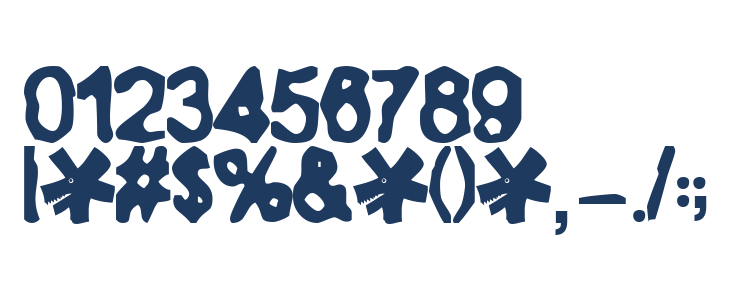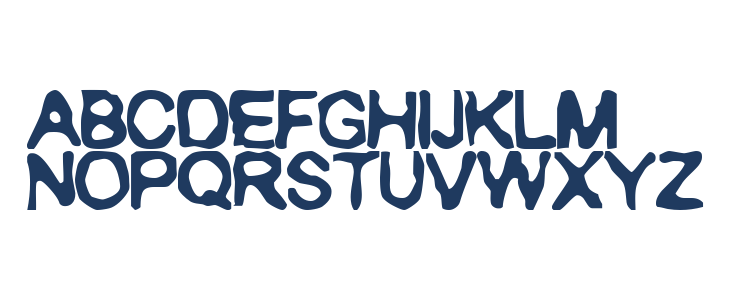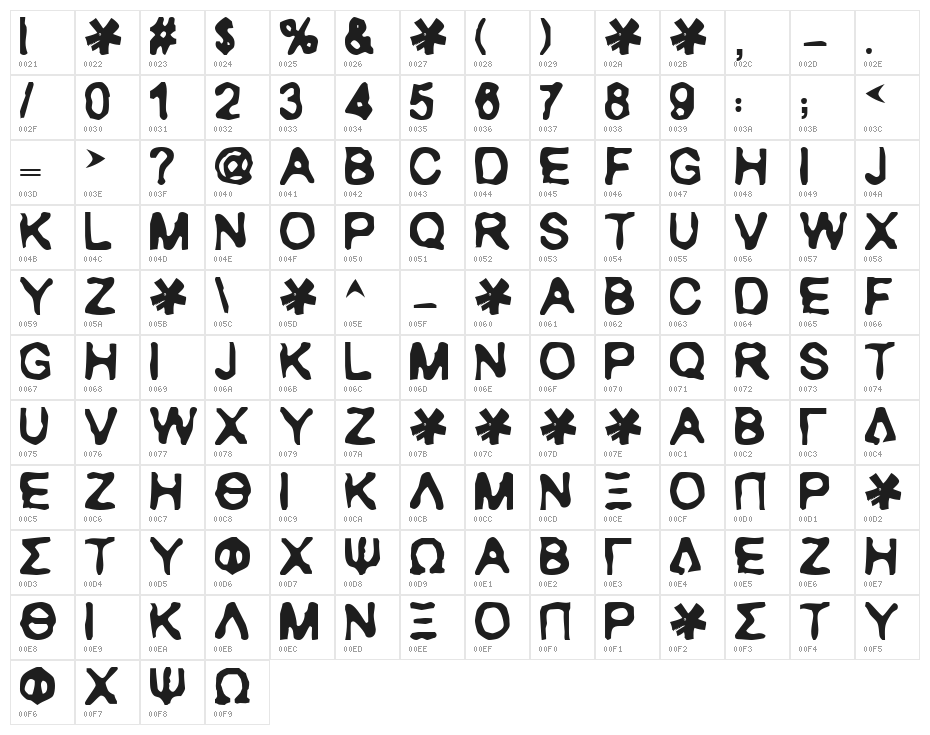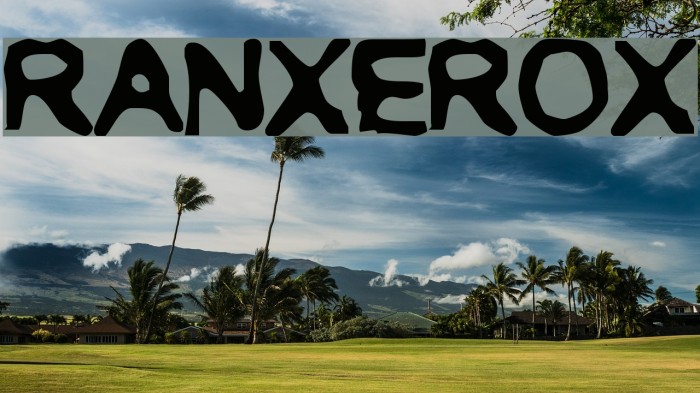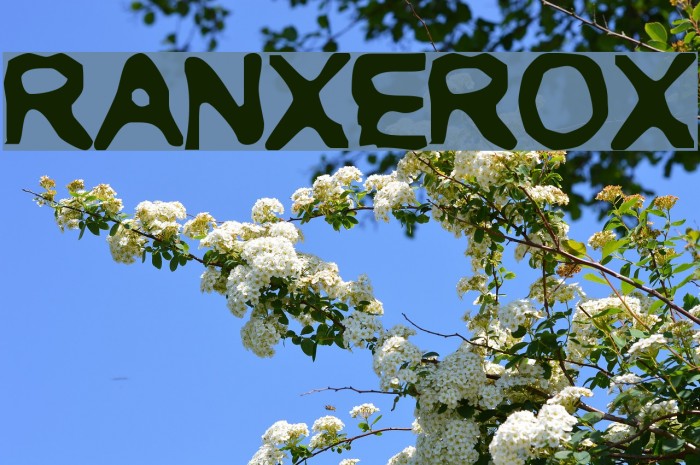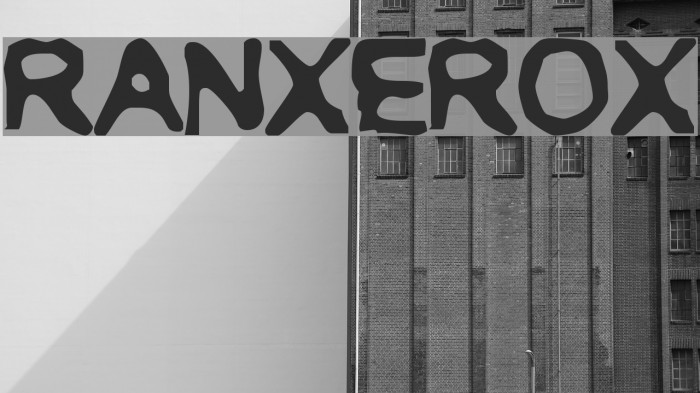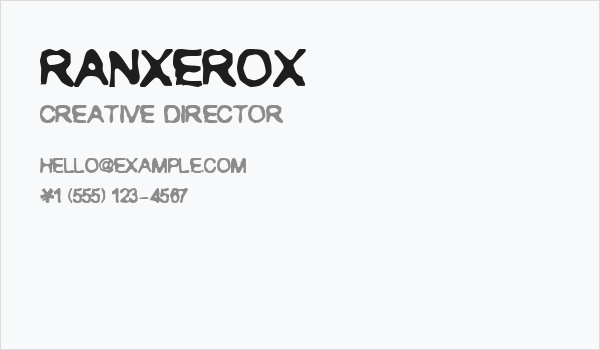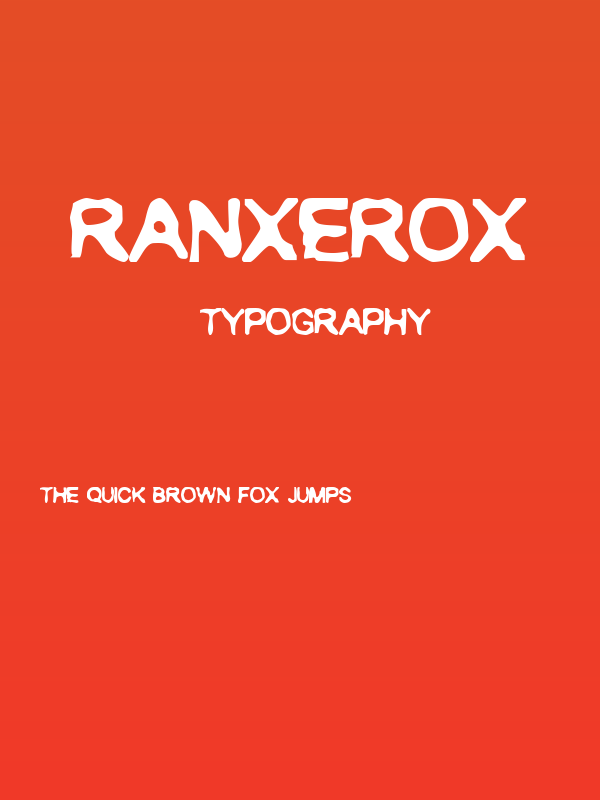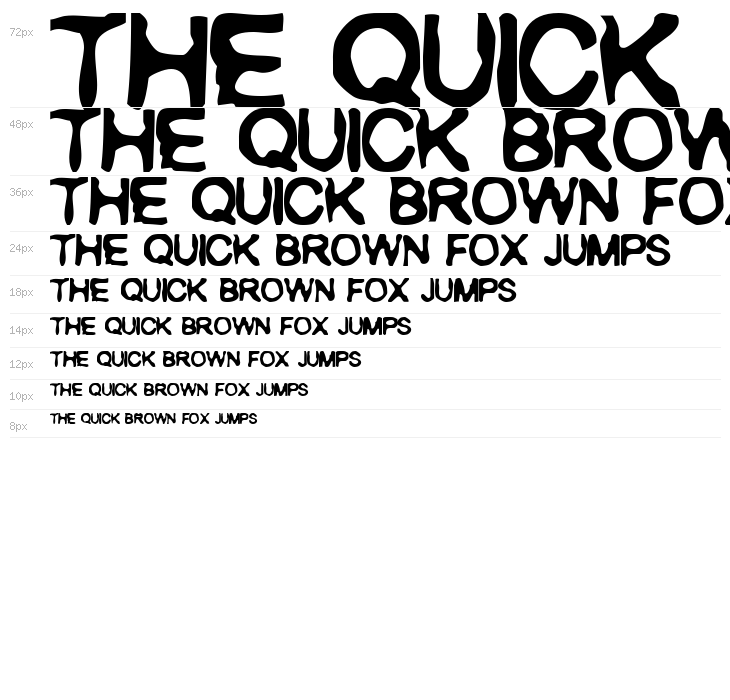
RANXEROX Font
RANXEROX Description
This font features a bold and dynamic style with a distinctly hand-drawn appearance. The characters are thick and irregular, giving them a playful and energetic feel. The strokes are uneven, with varying thickness that adds a sense of movement and spontaneity. The overall look is somewhat chaotic yet controlled, making it suitable for creative and artistic projects. The uppercase and lowercase letters maintain a consistent style, while the numbers and special characters are equally expressive, enhancing the font's unique personality.
| Overall Style | Playful, Artistic |
| Use Case | Headlines, Posters, Creative Branding |
| Proposed Projects | Ideal for comic books, graphic novels, posters, and creative branding projects. |